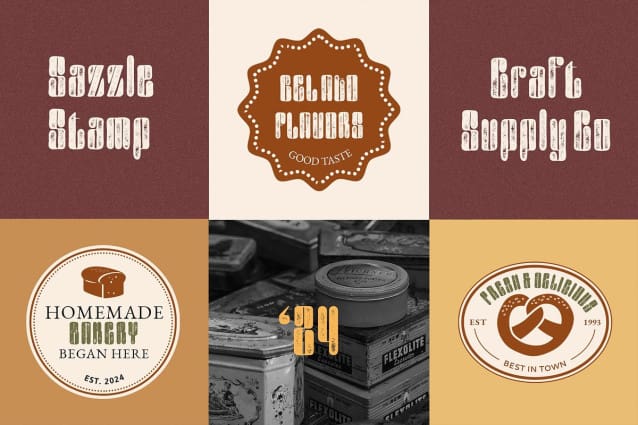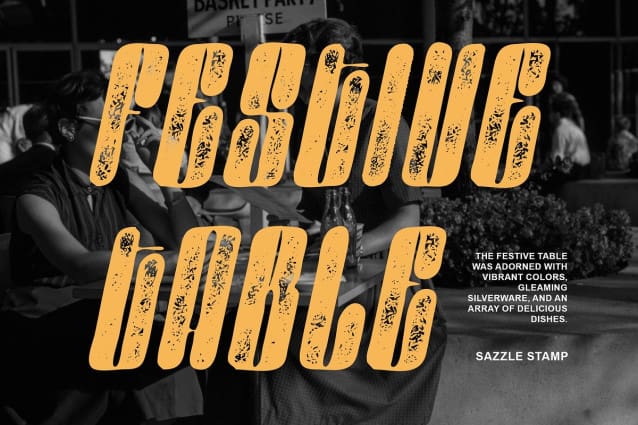
Sazzle Rounded Stamp Font
Sazzle Rounded Stamp Font is a standout modern sans-serif font characterized by its condensed, bold design and rounded edges. Its smooth, curved forms provide a perfect balance of strength and approachability, making it a versatile choice for a wide range of design projects.
Stamp Effect for Unique Texture What sets this font apart is the distinctive stamp effect, which adds a textured, handcrafted quality. This detail brings depth and personality to the font, creating a raw and organic aesthetic that enhances its visual impact. Whether you’re aiming for a rustic feel or a modern, artistic edge, the stamp effect makes this sans-serif font with rounded shapes truly memorable.
Versatile and Impactful for Any Design This font is an excellent choice for branding, poster designs, packaging, and creative projects that demand bold and distinctive typography. Its condensed form ensures high visibility and adaptability, while the rounded shapes maintain a friendly and inviting appearance. The unique texture adds a creative flair, making it suitable for everything from contemporary advertising to themed designs with a more personal touch.